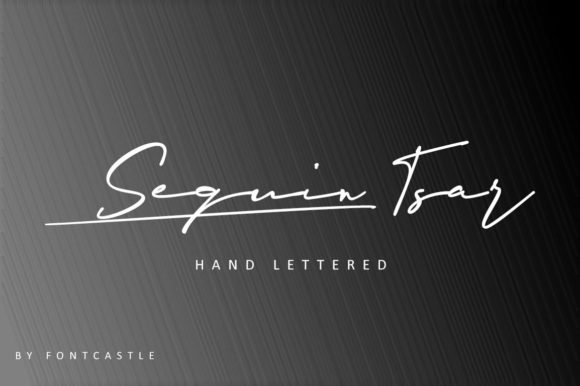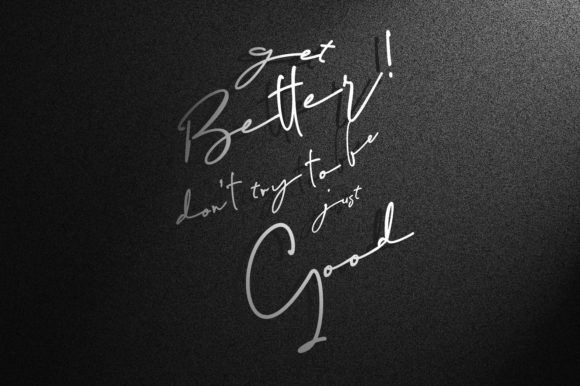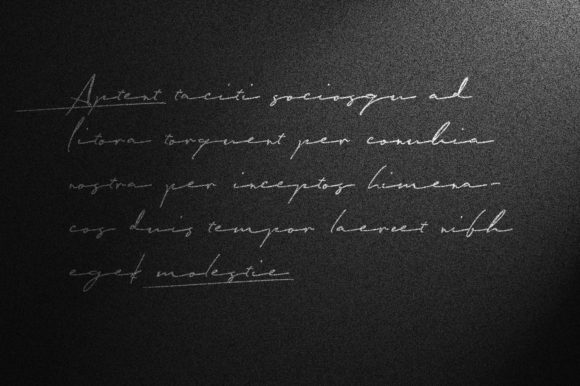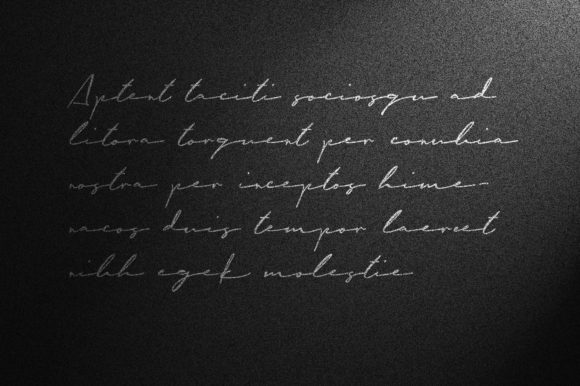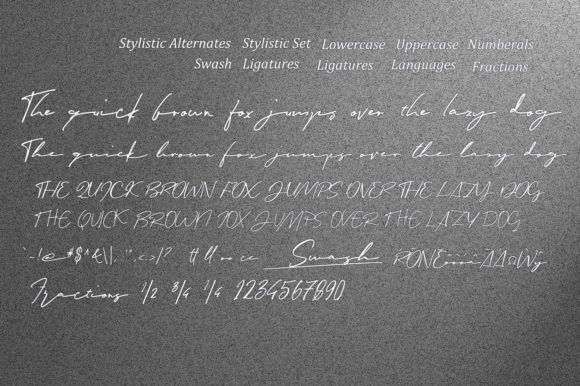
Sequin Tsar Font
About Sequin Tsar Font
Sequin Tsar is a stylish modern handwritten font. It is perfect for branding, wedding invitations, signatures, logos, labels, and much more.